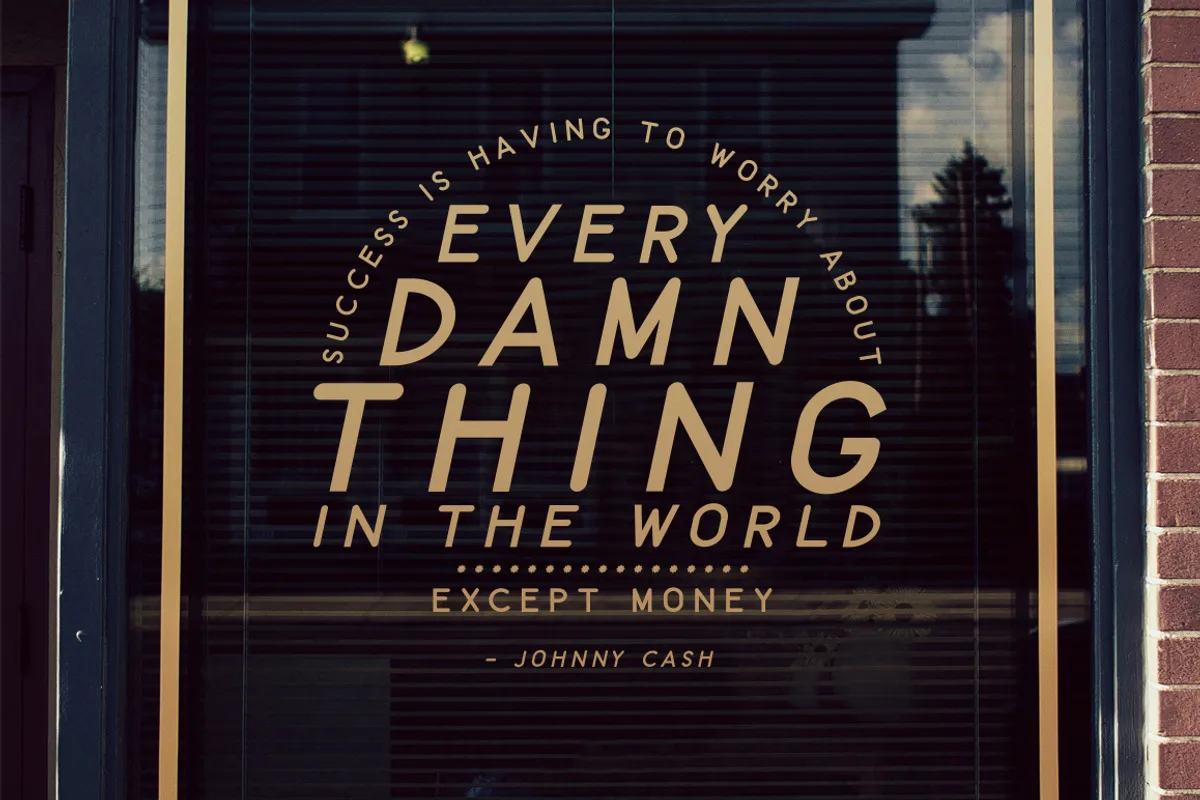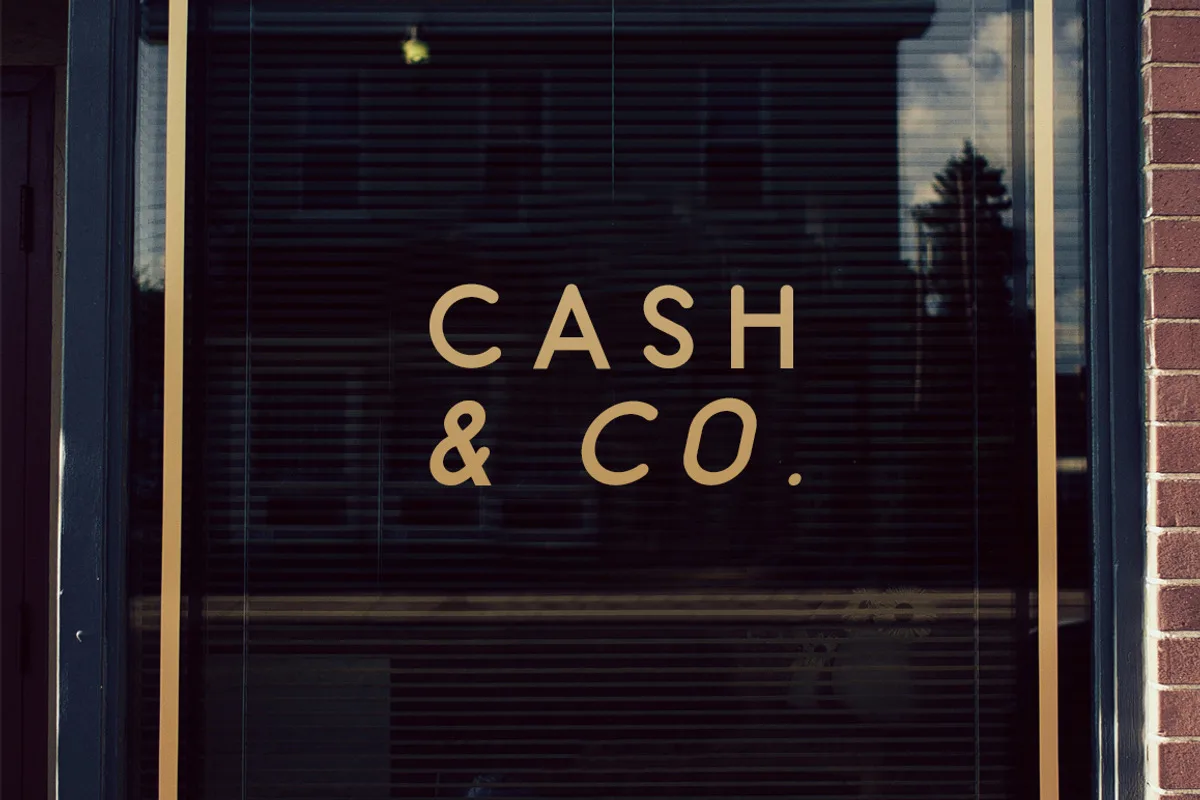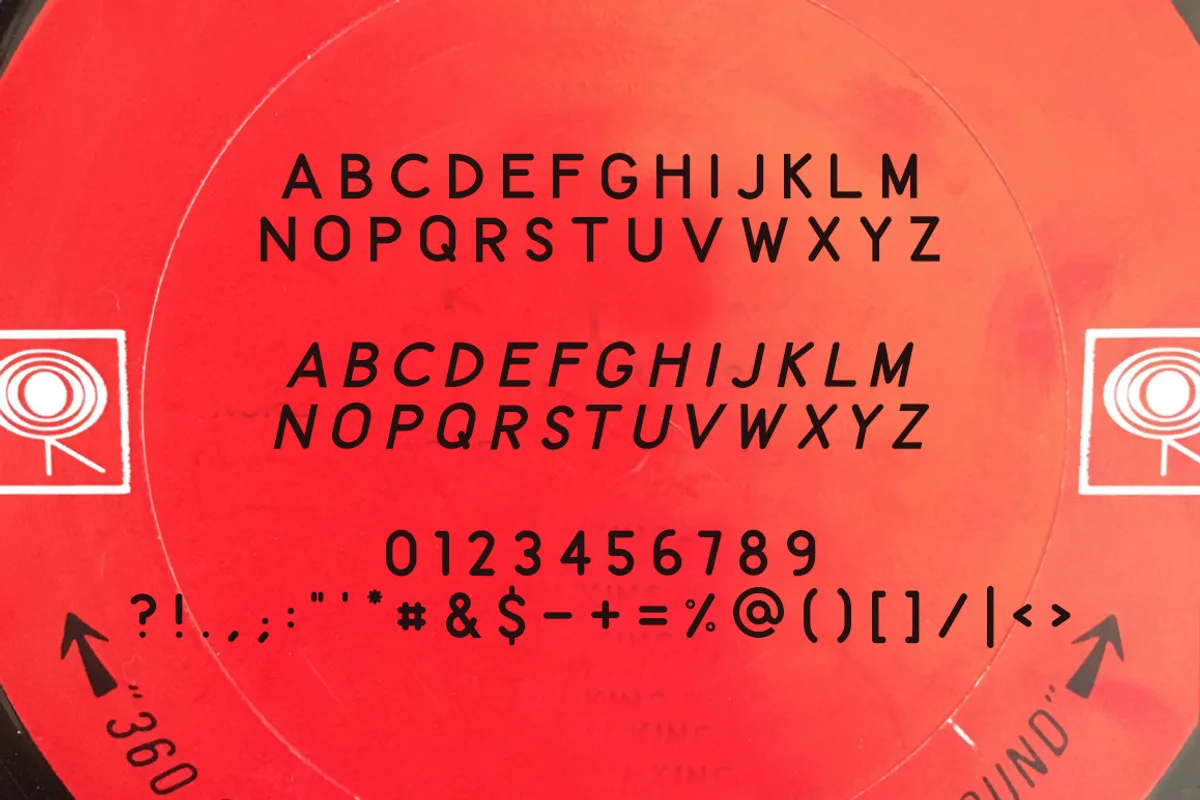
Kingsland is a vintage sans serif all-caps typeface. It is an excellent option for typography projects, logos, signage, invitations, branding, websites, and more!
- Capital letters & numbers
- Punctuation
- Non-English characters
- Italic & Regular